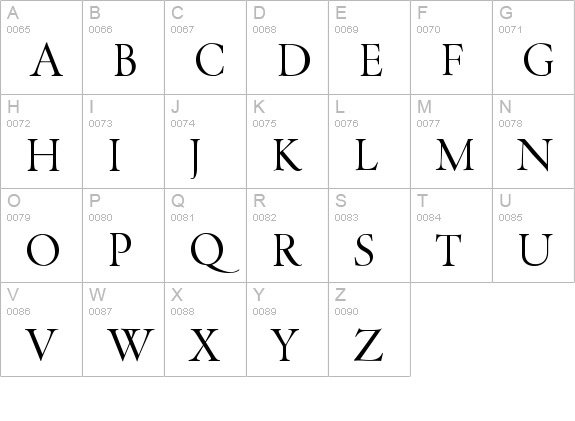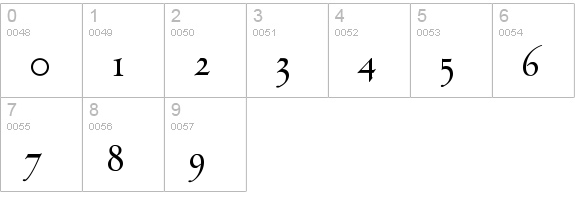
ThrohandInk-Roman Font Details
Introducing ThrohandInk-Roman font, a beautifully crafted typeface that effortlessly blends sophistication and creativity. This unique font exudes an elegant charm, while also retaining a touch of artistic flair. With its clean lines and delicate curves, ThrohandInk-Roman font is perfect for a wide range of design projects, from branding and logos to invitations and wedding stationery. What sets ThrohandInk-Roman font apart is its ability to captivate and engage the reader. Each letter has been meticulously hand-drawn, giving the font a sense of authenticity and character. The subtle ink texture adds a touch of depth and dimension, creating a visually pleasing aesthetic that is sure to leave a lasting impression. One of the most remarkable aspects of ThrohandInk-Roman font is that it is freely available to download at FontsMarket.com. This means that designers, creatives, and individuals alike can easily access and utilize this exceptional font in their projects without any cost. Whether you are a professional designer seeking a versatile and eye-catching typeface or an individual looking to add a personal touch to your creations, ThrohandInk-Roman font offers a remarkable solution. With its versatile design and timeless appeal, ThrohandInk-Roman font is the perfect choice for anyone seeking to elevate their design projects. Its clean and legible letterforms ensure readability, while the ink texture adds a touch of warmth and character. Whether you are designing a logo, creating branding materials, or crafting elegant invitations, ThrohandInk-Roman font will effortlessly elevate your designs to new heights. Download ThrohandInk-Roman font for free at FontsMarket.com and unlock the potential to create stunning visuals that capture attention and inspire. Experience the beauty and versatility of this remarkable font firsthand, and let your creativity soar.